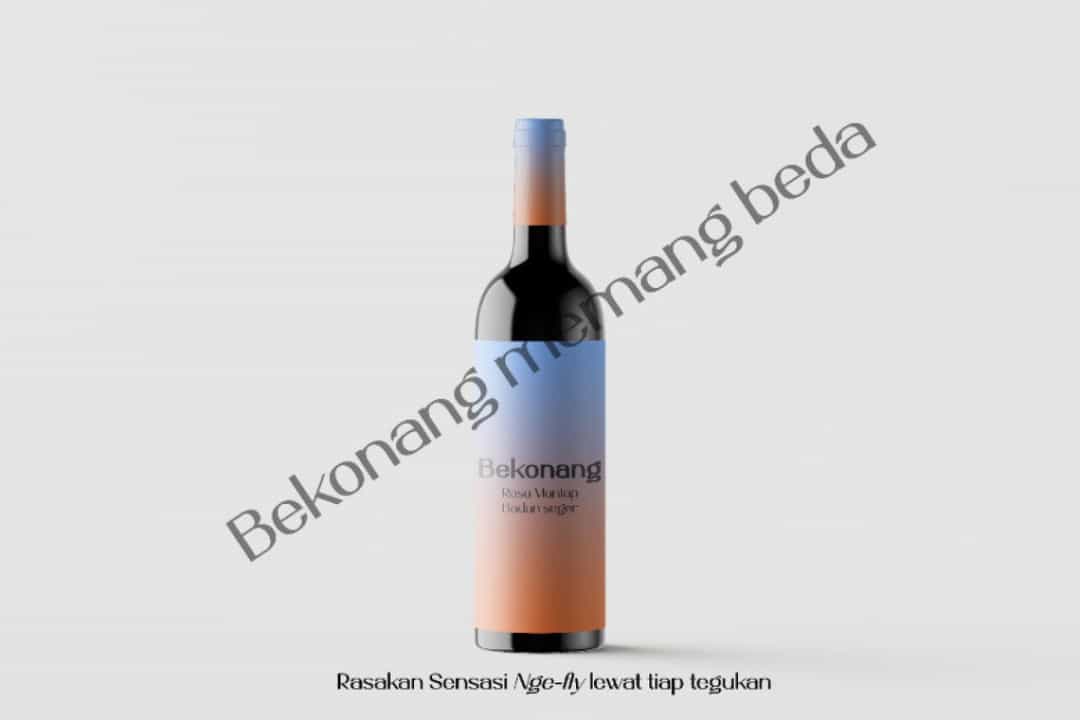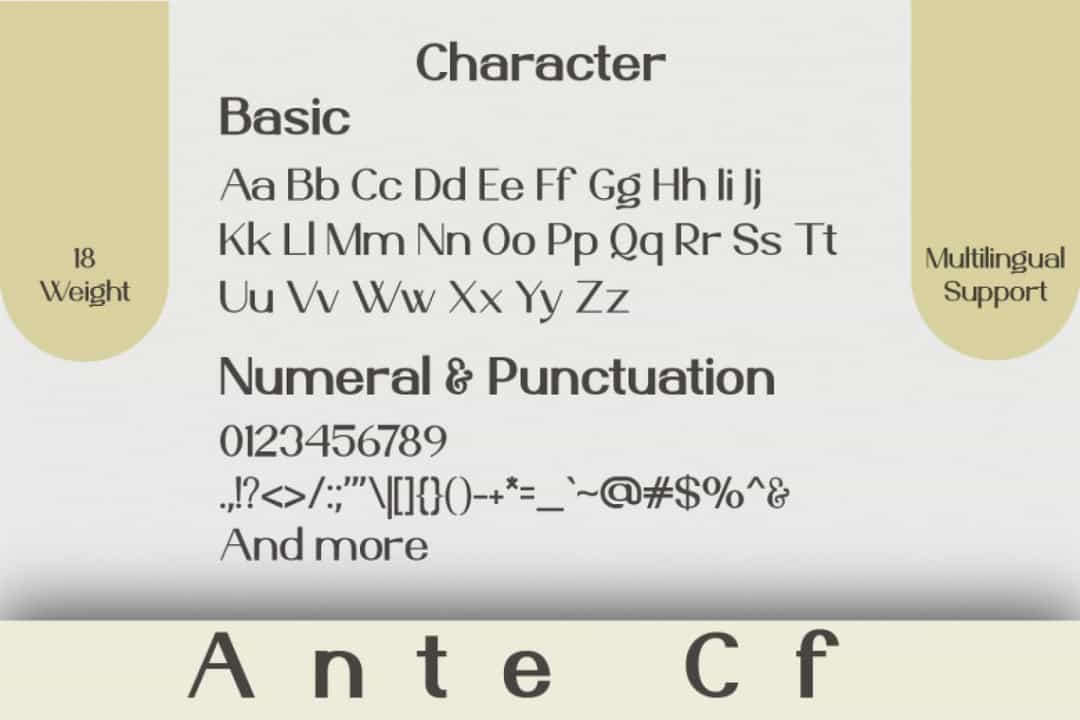
Ante Cf Font is an elegant sans-serif typeface ideal for creating various designs such as wedding invitations, logos, letters, headings, T-shirt signs labels announcements posters badges badges posters and much more.